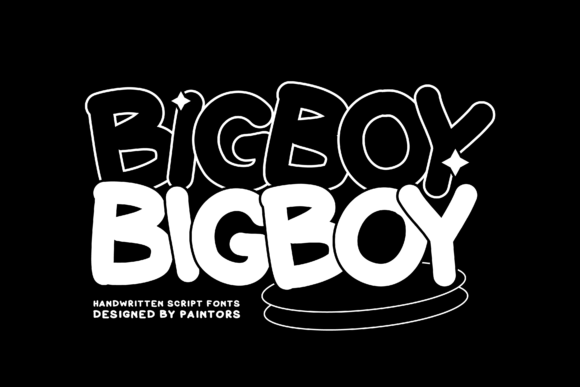
Unleashing Creativity with the Bigboy Font
Do you remember the excitement of designing your first poster in art class? The thrill of choosing the perfect font to grab attention and convey your message? That same spark of creativity can be ignited with the introduction of the Bigboy Font, a whimsical and playful bold font that brings a touch of quirky charm to any design.
The Bigboy Font is perfect for designers looking to add a delightful sense of fun and energy to their projects. Whether you’re working on a children’s material, a bold headline, or a vibrant poster, this font is sure to capture attention and put a smile on your audience’s face. Its unique style makes it a valuable asset for designers who want to stand out from the crowd and add a personal touch to their work.
Bigboy Font Key Features
- Unique Characteristics: Bigboy Font features a distinctive, bold, and playful style with rounded edges and a friendly feel, making it ideal for use in logos, branding, and advertising materials.
- Font Weight: Bigboy Font offers a range of font weights, from Light to Extra Bold, providing designers with the flexibility to create visually appealing and effective typography.
Designer Review: Bigboy Font
Overall, I think the Bigboy Font has some nice qualities that make it a decent choice for certain design projects. ✨ The font is quite bold and playful, which can be great for creating attention-grabbing headings or titles. The rounded edges and smooth curves also give it a friendly, approachable feel that can work well for brand identities or packaging design.
- The font is quite versatile and can be used for a variety of design projects, from headings and titles to body text and even logotypes.
- The bold and playful feel of the font can be great for creating a fun and energetic vibe in designs.
However, I do have some reservations about using the Bigboy Font in certain contexts. ⚠️ For one thing, the font’s boldness can be a bit overwhelming if used extensively throughout a design. It’s also worth noting that the font may not be the best choice for projects that require a more serious or professional tone.
Overall, I think the Bigboy Font is a solid choice for designers who are looking for a fun and playful font to add some personality to their designs. However, it’s not a one-size-fits-all solution, and designers should carefully consider whether the font will fit with the tone and style of their project.
Tips for Getting the Most Out of Bigboy Font
Bigboy Font is best used for bold, eye-catching headlines and titles. To get the most out of it, use it in conjunction with a clean, simple font for body text.
Bigboy Font is commonly used in:
- Restaurant and food branding
- Event marketing and advertising
- Personalized merchandise and gifts
Alternatives to Bigboy Font
Great Vibes is a modern, cursive font that can be used for a wide range of applications, from posters to invitations. It’s ideal for designs that require a touch of elegance and sophistication.
Compared to Bigboy Font, Great Vibes is more refined and less playful, making it suitable for more formal designs. It also has a more consistent and polished look, whereas Bigboy Font can appear a bit more rough around the edges.
Pacifico is a beautiful, elegant font that is perfect for designs that require a touch of luxury and sophistication. It’s ideal for use in high-end branding, magazines, and other publications that demand a premium look.
Compared to Bigboy Font, Pacifico is more refined and less playful, making it suitable for more formal designs. It also has a more consistent and polished look, whereas Bigboy Font can appear a bit more rough around the edges.